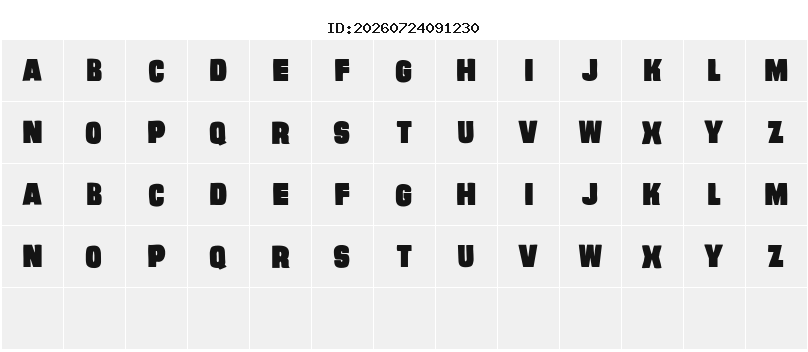
Evil Conspiracy Regular Preview
• Font Name: Evil Conspiracy Regular
• Full Font Name: Evil Conspiracy Regular
• Designer: Frédéric Rich
• Manufacturer: Frédéric Rich
About Evil Conspiracy Regular.ttf
Evil Conspiracy Regular.ttf is a modern, elegant sans-serif font designed for ultimate readability and visual harmony. Perfect for branding, headlines, web design, and print materials.